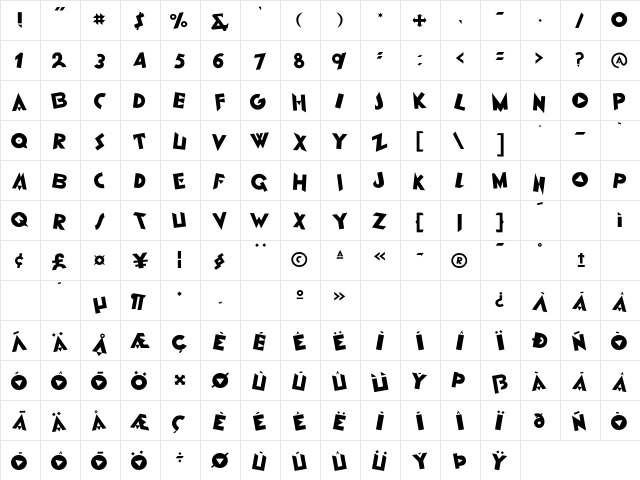
IlFuturismo Velocita
Design Context for IlFuturismo Typeface
IlFuturismo channels digital-age aesthetics through its sharp, structured letterforms — ideal for brands that want to signal innovation.